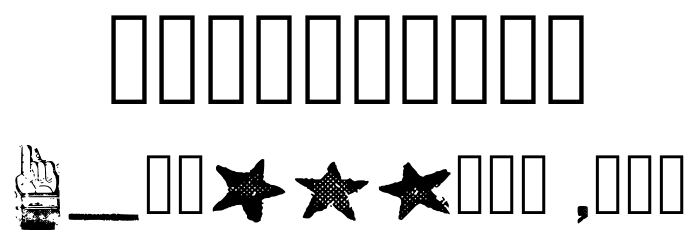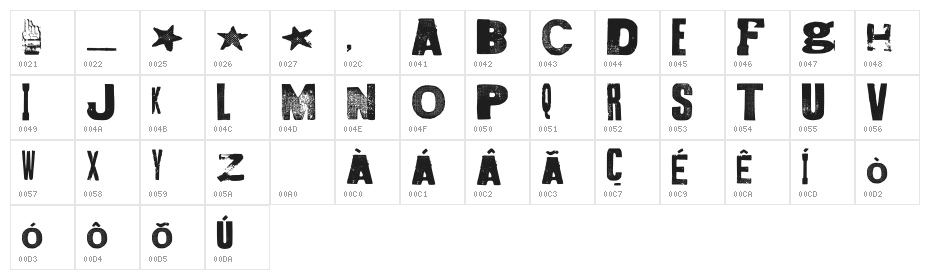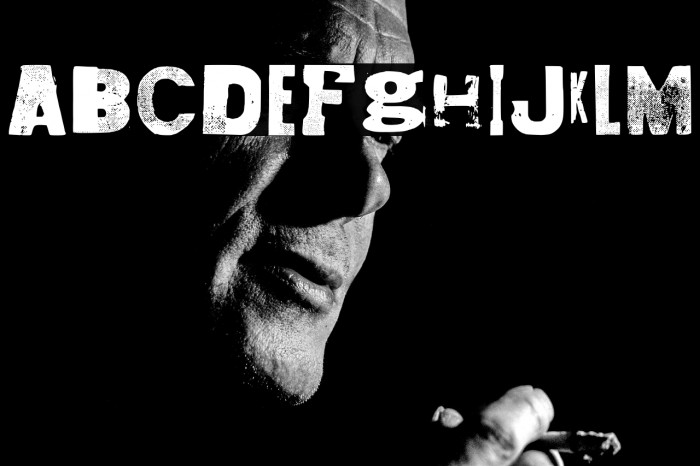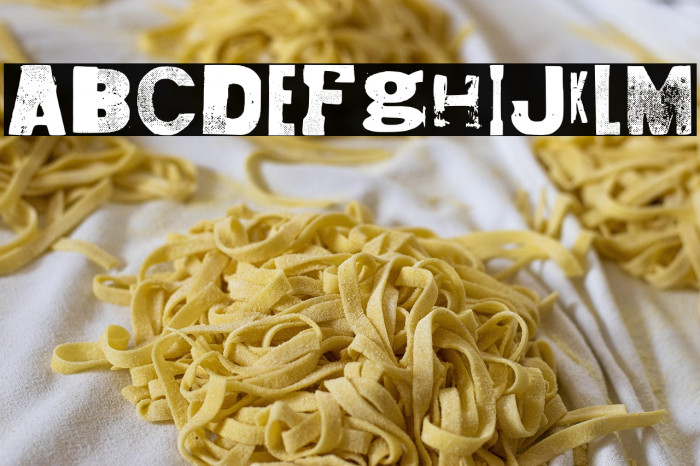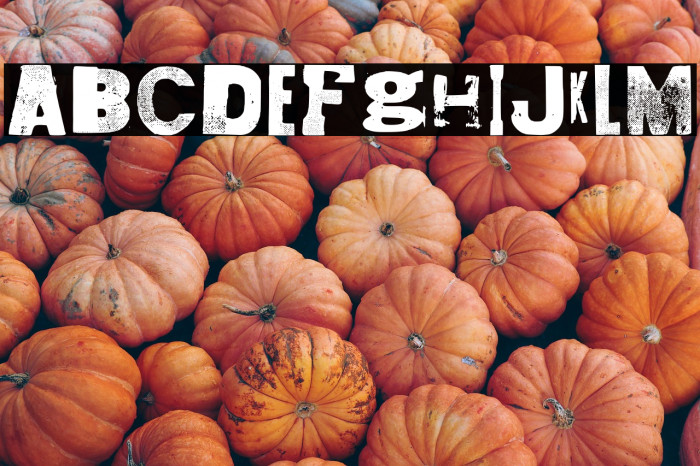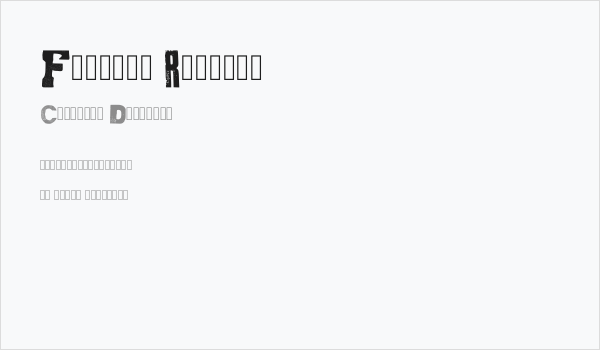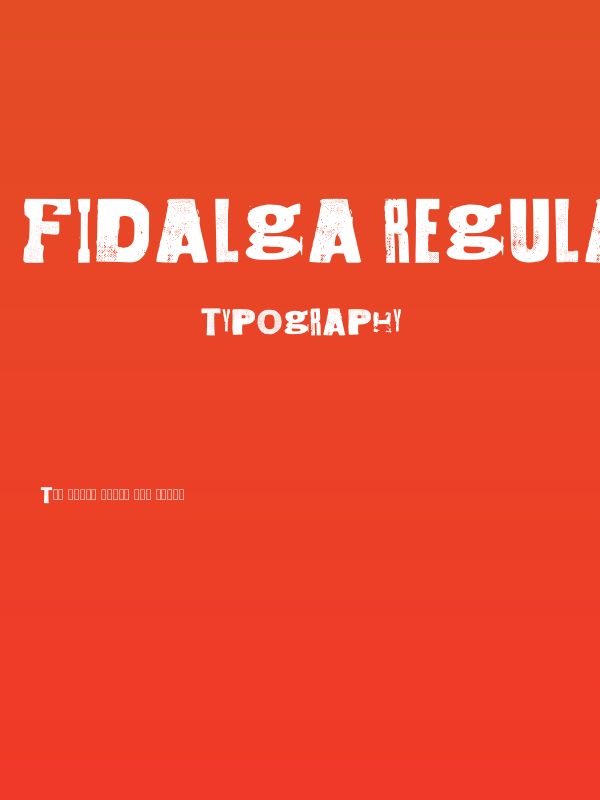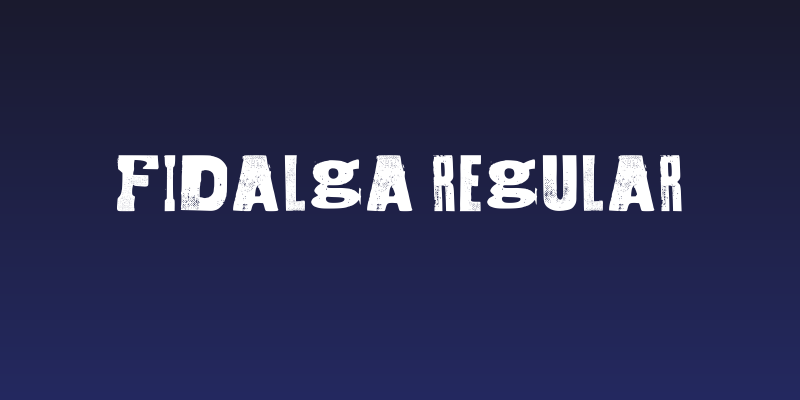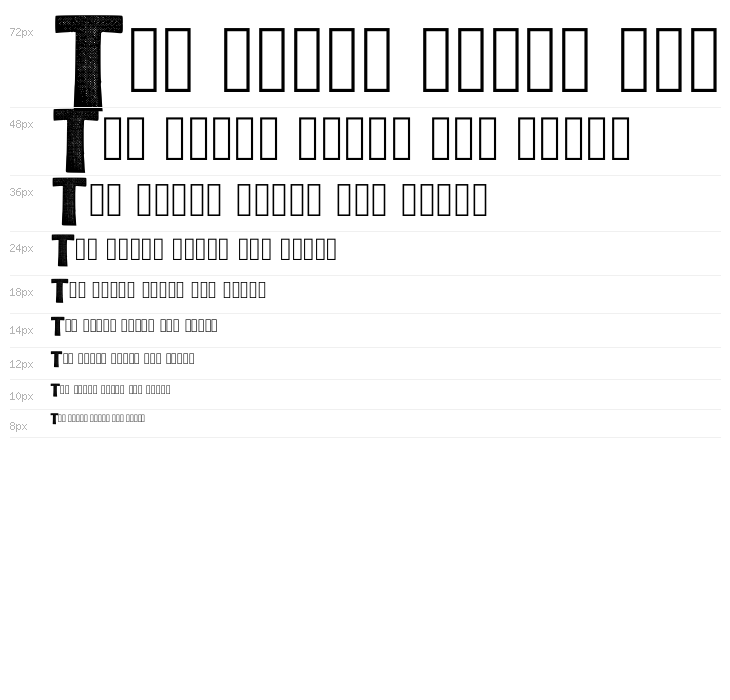
Fidalga Regular Font
Fidalga Regular Description
This font features a bold and distressed style, with a textured appearance that gives it a rugged, vintage feel. The uppercase letters are particularly striking, with varying levels of distress that add character and uniqueness to each letter. The font's design suggests a hand-crafted, artistic approach, making it ideal for projects that require a strong visual impact. The irregularities in the letterforms contribute to its charm, making it suitable for creative and unconventional designs.
| Proposed Projects | Ideal for posters, album covers, branding projects, and any design requiring a bold, artistic touch. |